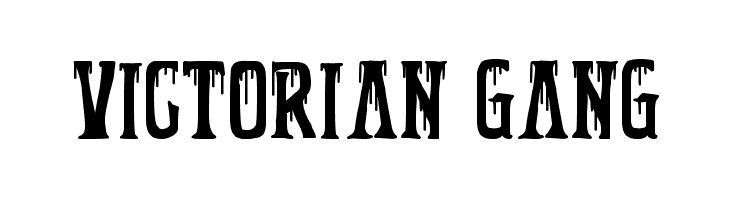
A bold, decorative font with Victorian-inspired, ornate details.
A vintage-inspired dingbat font with poison bottles and skull motifs.
A rugged, distressed font with jagged edges and a hand-drawn appearance.
A whimsical font with characters as cartoonish voodoo dolls.
A playful, voodoo doll-themed decorative font with a whimsical style.
A bold, jagged font with a rugged and mysterious style.
A bold, 3D-style font with sharp, angular edges and a dramatic appearance.
A bold, 3D italic font with a dynamic, blocky style and shadow effect.
A bold, condensed font with a jagged, gothic appearance.
A bold, condensed, and italic font with sharp, angular edges and a rugged, modern style.